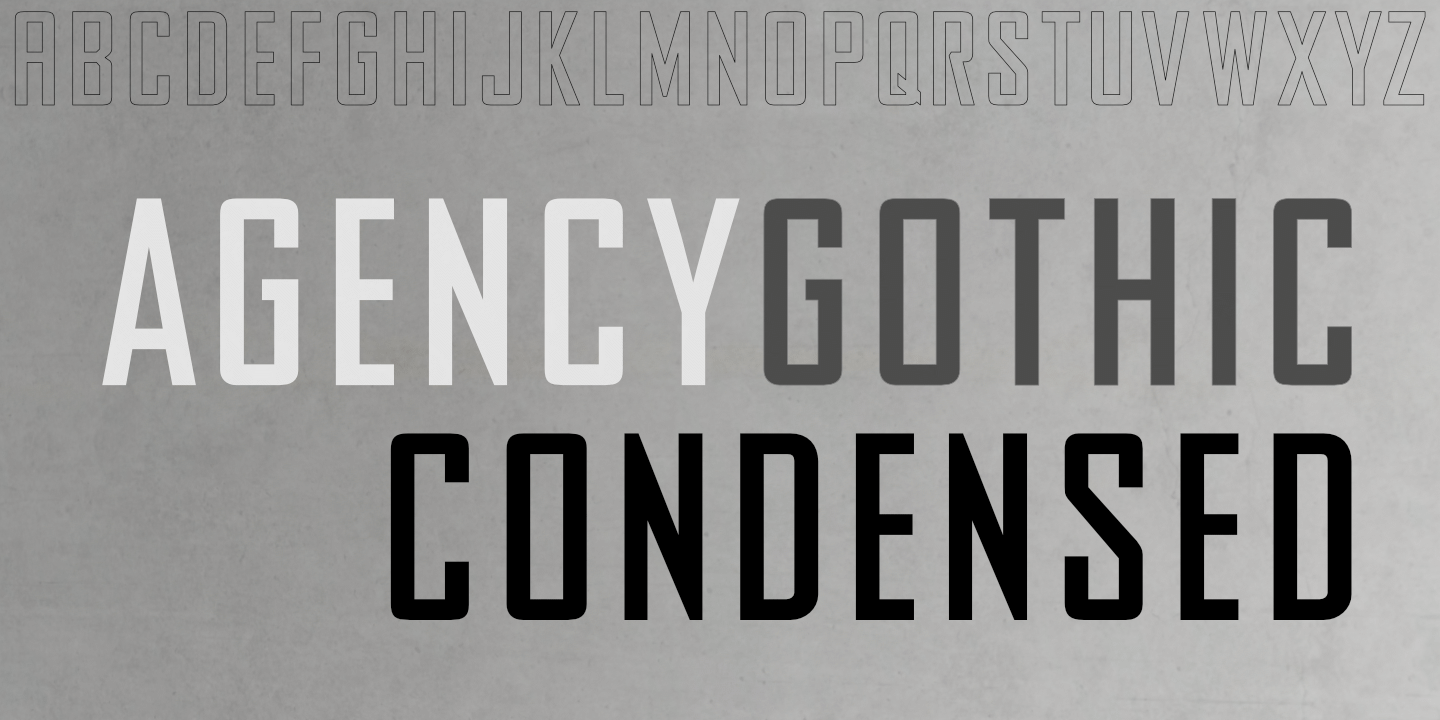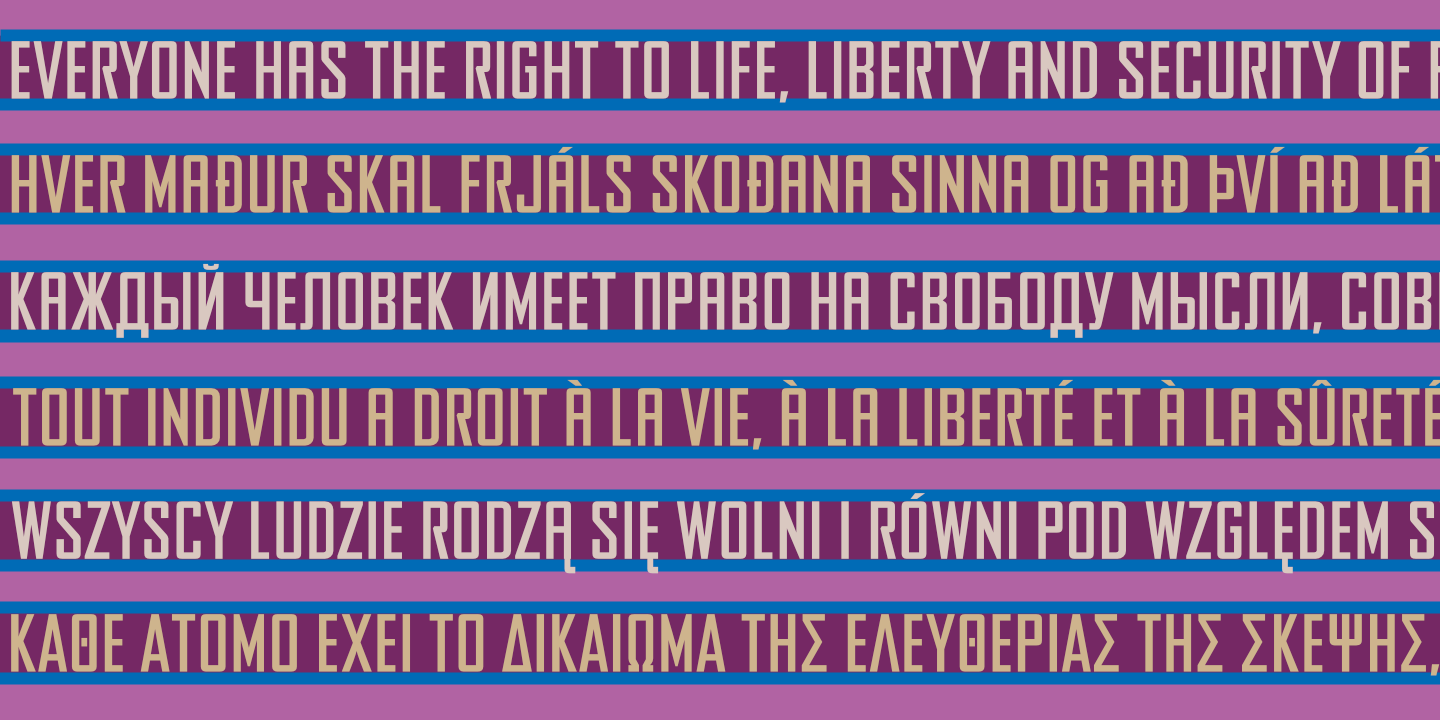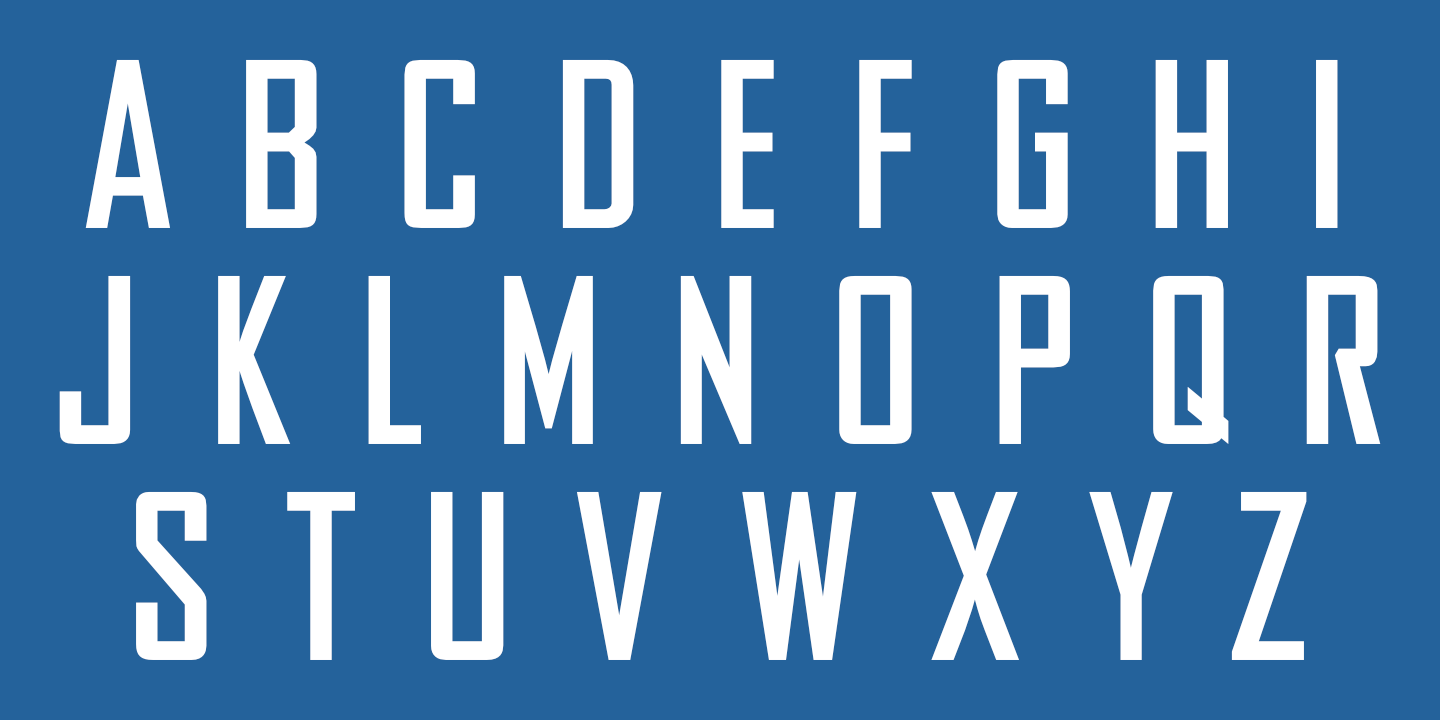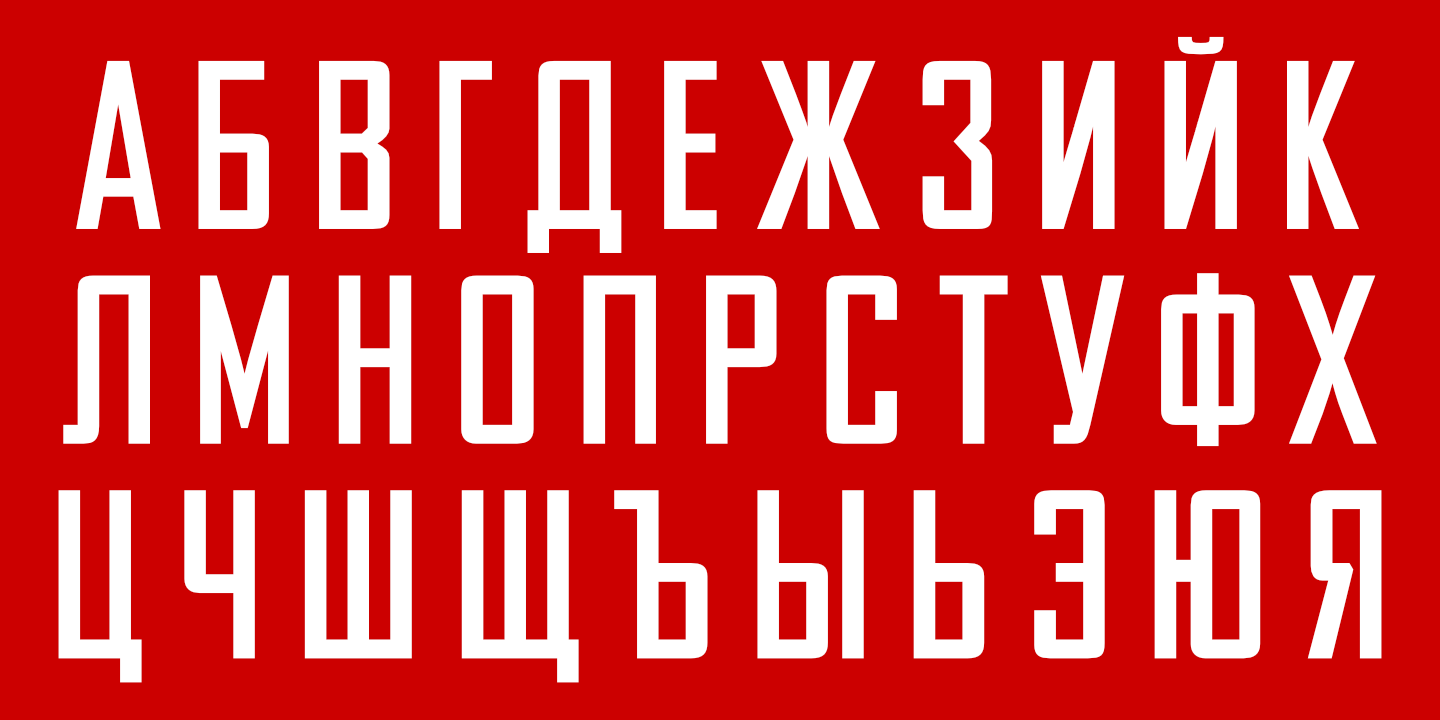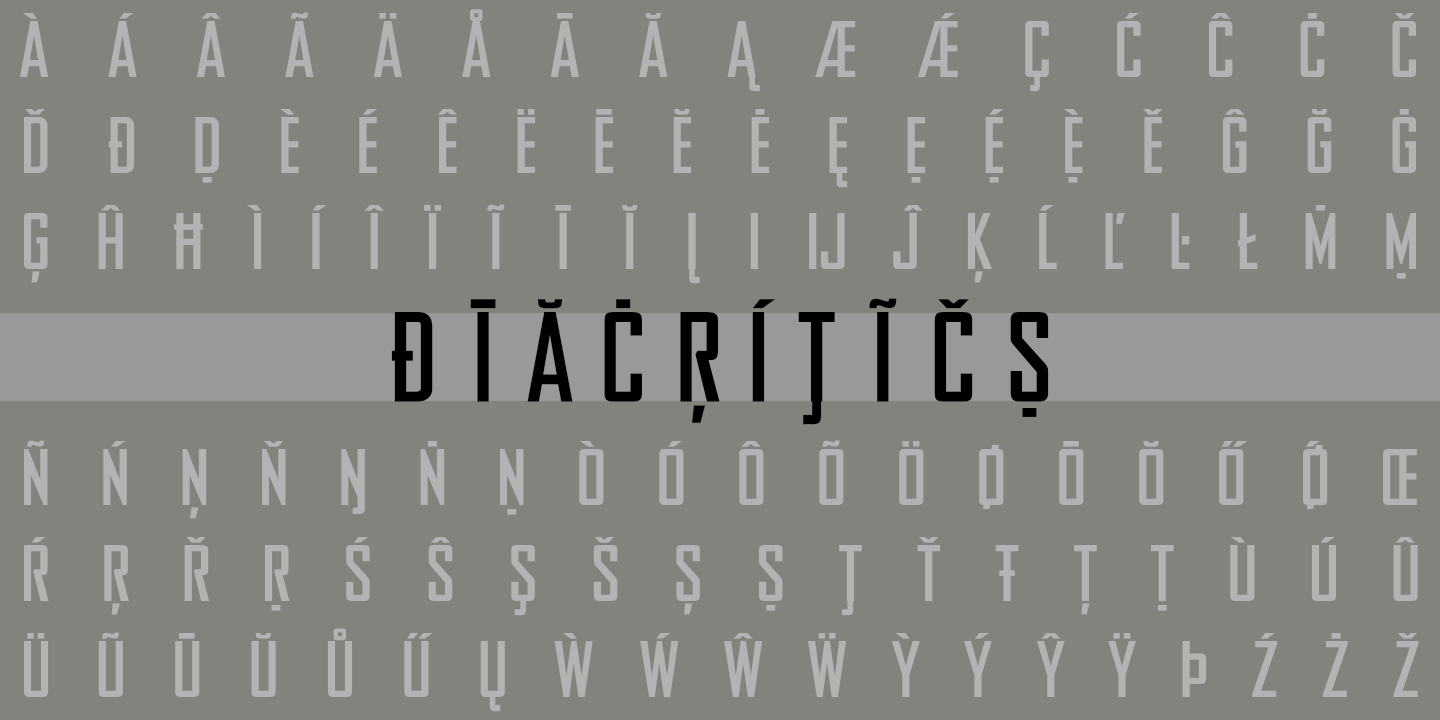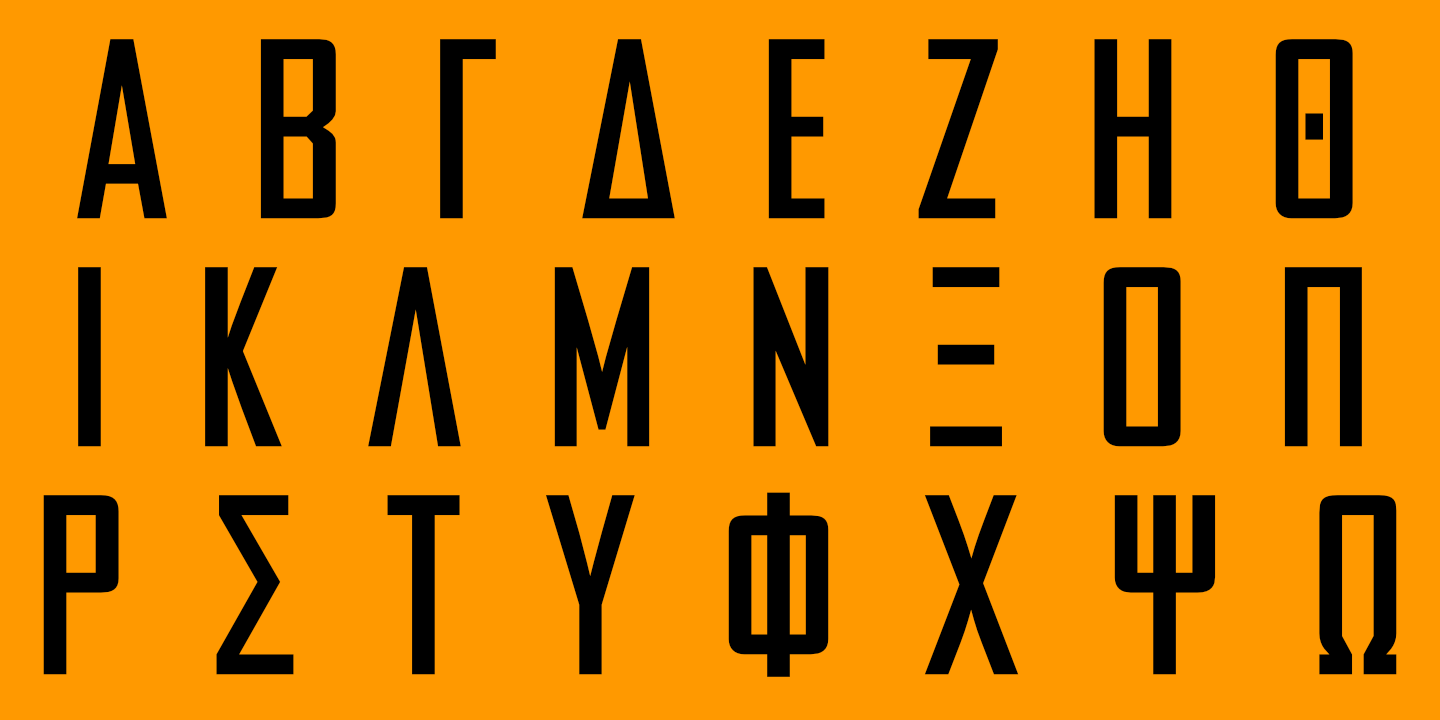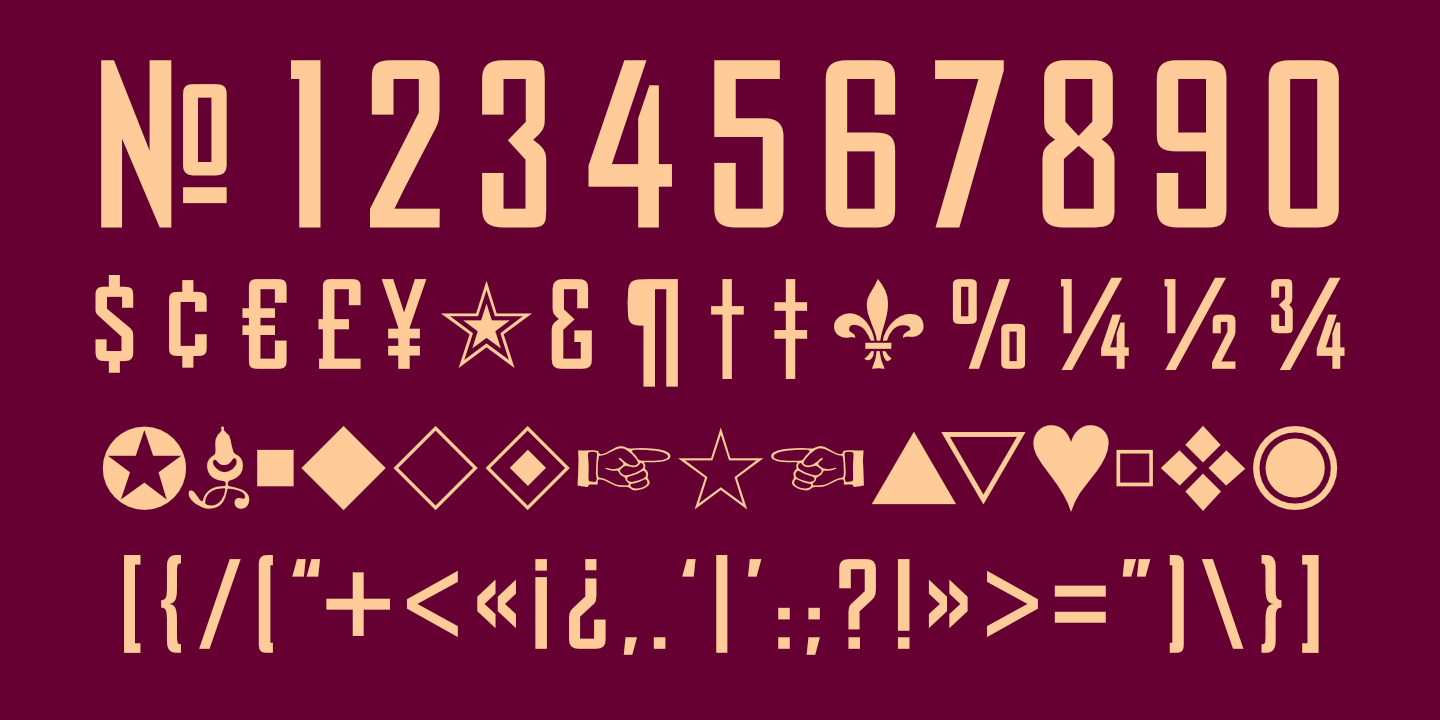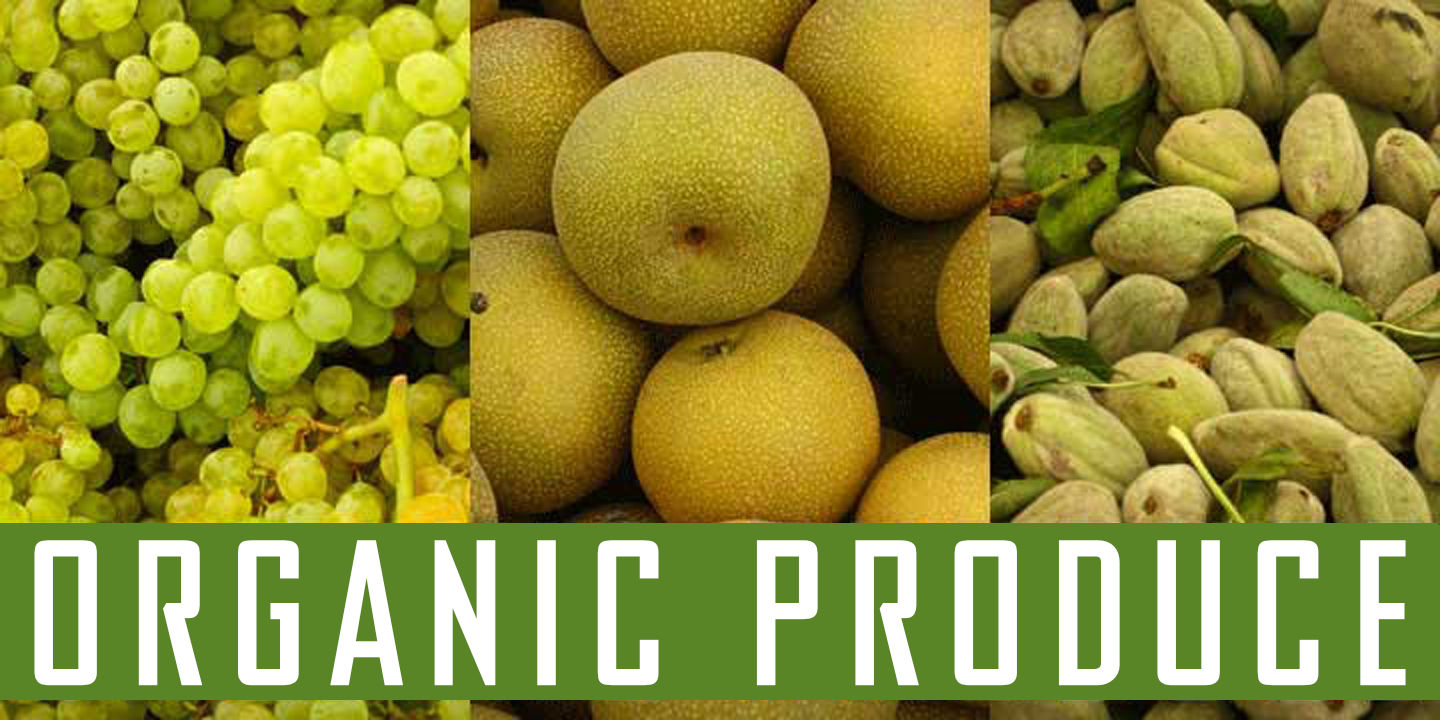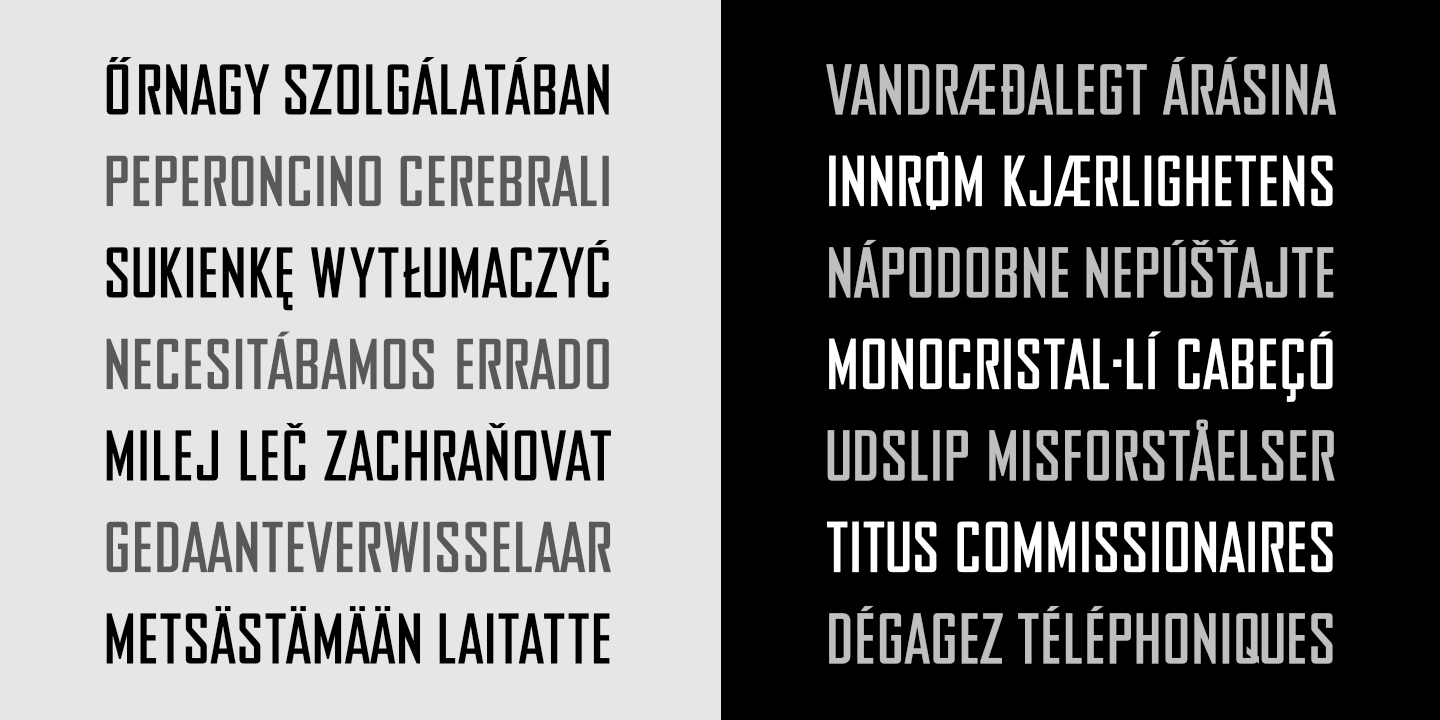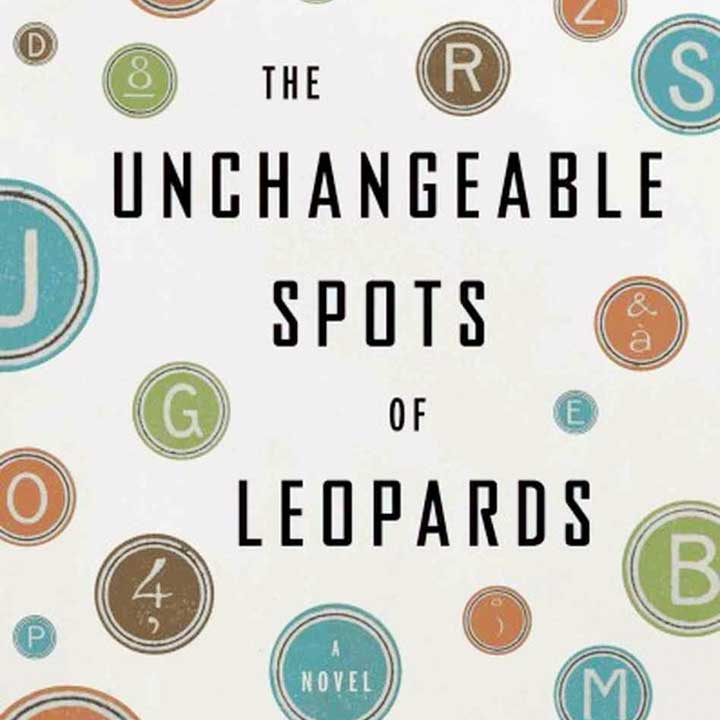
Agency Gothic CT Condensed: Basic Latin alphabet. See Glyphs for details.
Agency Gothic CT Condensed supports most languages that use the Cyrillic alphabet. See Glyphs for details.
Agency Gothic CT Condensed supports modern (monotonic) Greek. See Glyphs for details.
Agency Gothic CT Condensed: Numerals, basic punctuation, currency symbols, and a sampling of ornaments.
Agency Gothic CT Condensed supports most European languages.
Agency Gothic CT Condensed used on a book cover. (Author: Kristopher Jansma)